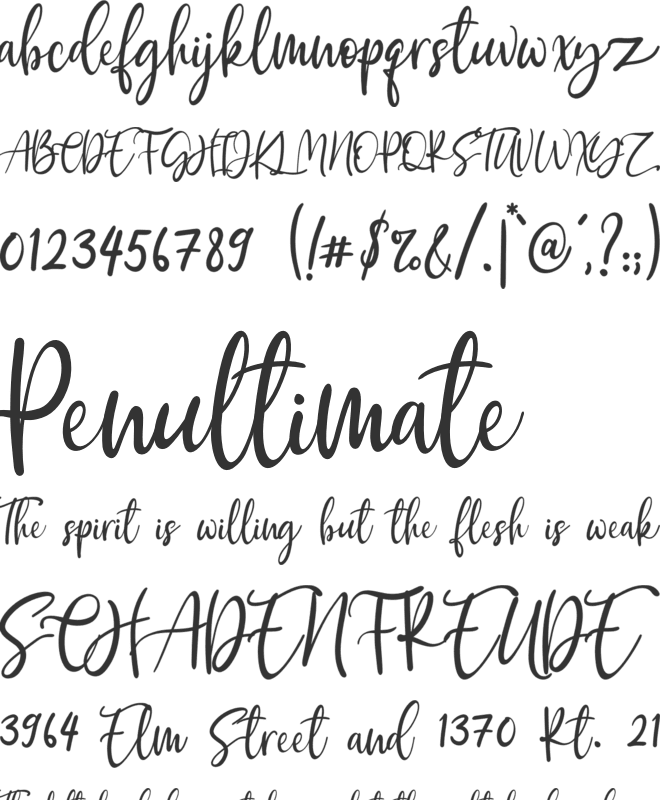
Kayliee Mightness Font Family
Kayliee Mightness Handwritten Typeface. A collection of letters and numbers suitable your projects also great for Logotype, Branding Design, Logo Design, Digital Lettering Arts, T-Shirt/Apparel, Poster, Magazine, Signs, Advertising Design, and any design needs.